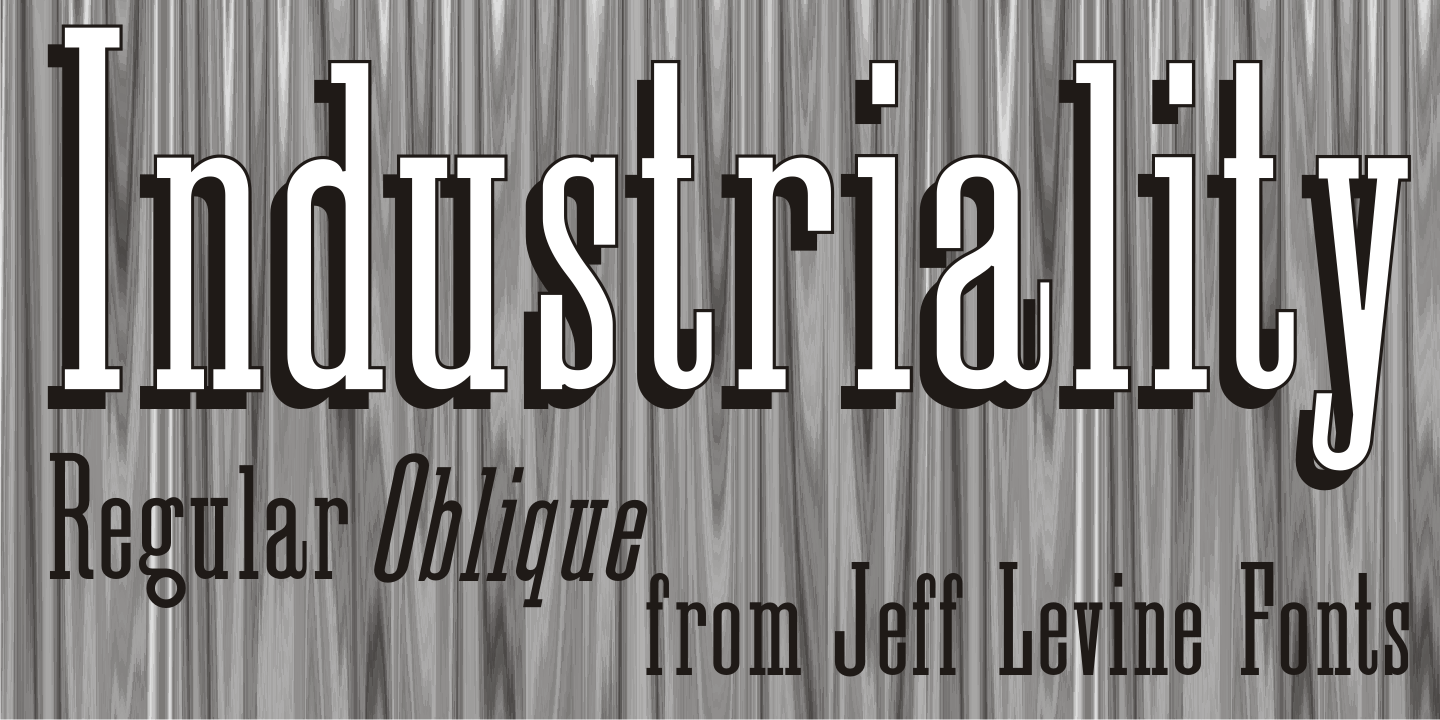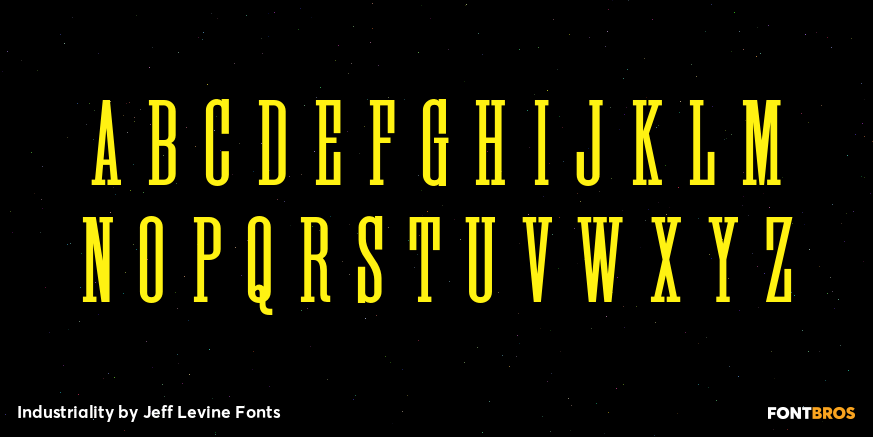
Industriality
Industriality JNL is a slab serif based on a classic typeface. Its condensed design allows for placing more copy inside a smaller area, and is best suited for ad headlines, titling or short blurbs.